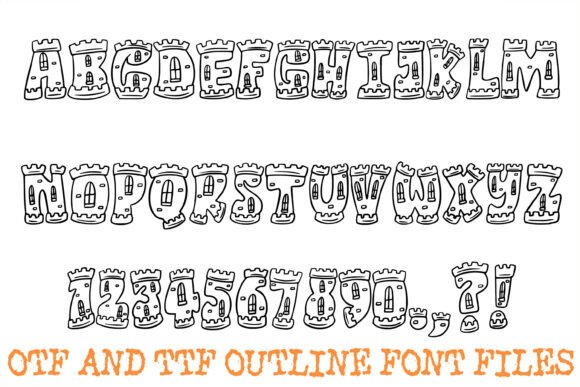
The Magical World of Cartoon Castle History Medieval Letters Font
Have you ever been working on a design project, pouring your heart and soul into it, only to get stuck on one tiny detail: the font? I remember a particularly frustrating experience when I was designing a custom birthday invitation for a friend’s kid. The theme was medieval knights and princesses, and I just couldn’t find a font that fit the bill. That was until I stumbled upon the Cartoon Castle Font, a majestic, medieval-themed display typeface that transformed every letter into a fortified stone tower.
A Royal Introduction to Cartoon Castle Font
The Cartoon Castle Font is more than just a font – it’s a storytelling tool. Featuring iconic battlements, arched windows, and sturdy stonework details, this font is perfect for fantasy book titles, princess or knight-themed birthday invitations, and whimsical history classroom decor. Each character is meticulously hand-drawn with a “storybook” aesthetic, blending blocky, defensive silhouettes with charming illustrative touches like multi-colored turrets and stone textures.
What I Love About Cartoon Castle Font ✨
- ✅ Unique and whimsical design that’s sure to capture attention
- ✅ Meticulously hand-drawn characters with intricate details
- ✅ Perfect for a variety of projects, from fantasy book titles to nursery art
- ⚠️ Limited use in formal or professional settings due to its whimsical nature
- ⚠️ May not work well in small font sizes due to intricate details
The Backstory Behind Cartoon Castle Font
The Cartoon Castle Font was designed with the intention of creating a unique and imaginative font that would transport users to a magical world of medieval fantasy. The designer, inspired by classic fairytales and storybooks, aimed to craft a font that would be both fun and sophisticated.
| Font Name | Cartoon Castle History Medieval Letters Font |
| Author | squeebcreative |
| What is the Cartoon Castle Font best used for? | The Cartoon Castle Font is perfect for fantasy book titles, princess or knight-themed birthday invitations, and whimsical history classroom decor. |
| Are there any limitations to using the Cartoon Castle Font? | Yes, the Cartoon Castle Font may not be suitable for formal or professional settings due to its whimsical nature, and may not work well in small font sizes due to intricate details. |